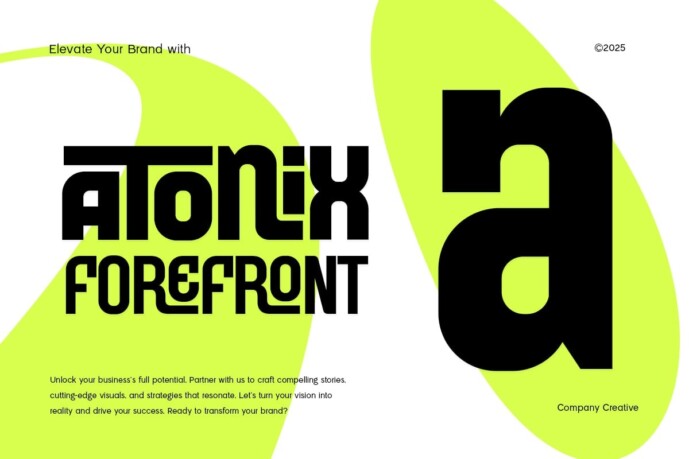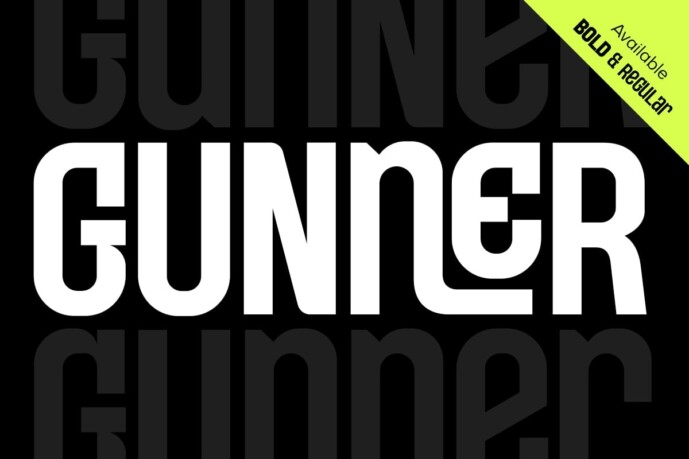
Gunner Condensed Font
Gunner Condensed Font is a condensed font that brings a bold, modern touch to any design. Its sleek, compact form makes it perfect for projects that require a strong visual impact without taking up too much space. Whether you’re creating logos, headlines, or branding materials, Gunner delivers a powerful, confident look.
This font stands out for its clean lines and tight letter spacing, making it very effective for both print and digital formats. It is a versatile font that is suitable for many applications, from editorial layouts to promotional materials, giving an elegant and minimalist touch to your designs.
With a strong, condensed style, Gunner is designed with precision and clarity in mind, ensuring your message is communicated boldly and effectively. Its OpenType features and alternate characters provide flexibility, allowing for customization and unique typographic results.